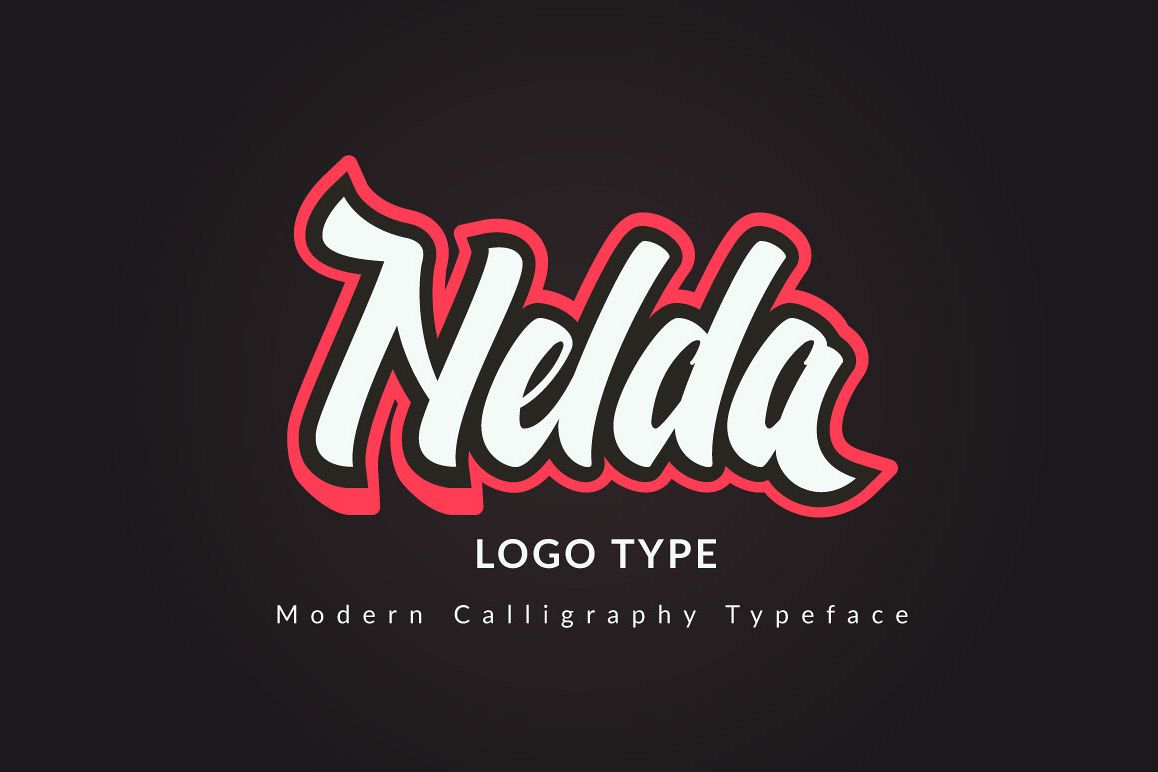
Nelda Typeface
Nelda is bold, playful, modern, and multi-purpose typeface that combines brush lettering with natural handwriting. It is suitable for logo, packaging, headline, poster, t-shirt, etc.